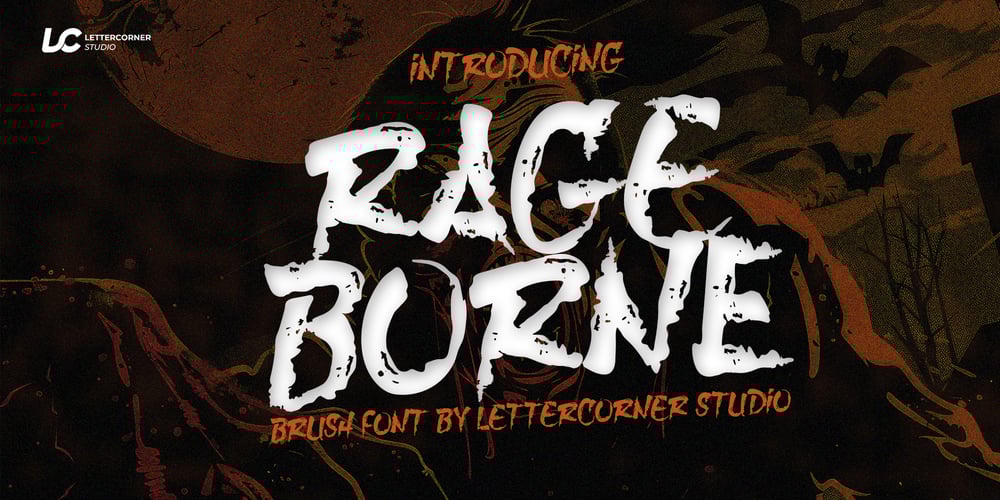
Rageborne Font Family was designed by Muhammad Afif Ersya and published by Mevstory Studio. Rageborne contains 1 styles and family package options. Rageborne Typeface was inspired from chaotic, riot, protest, and amok nuance. Combine with angry hand drawn brush, make the typeface looks very instant and messy. Best Uses for Cover album, Movie Poster, Logo, Apparel Design, Invitation, Headline, Label, Packaging, Logo type, poster, etc.